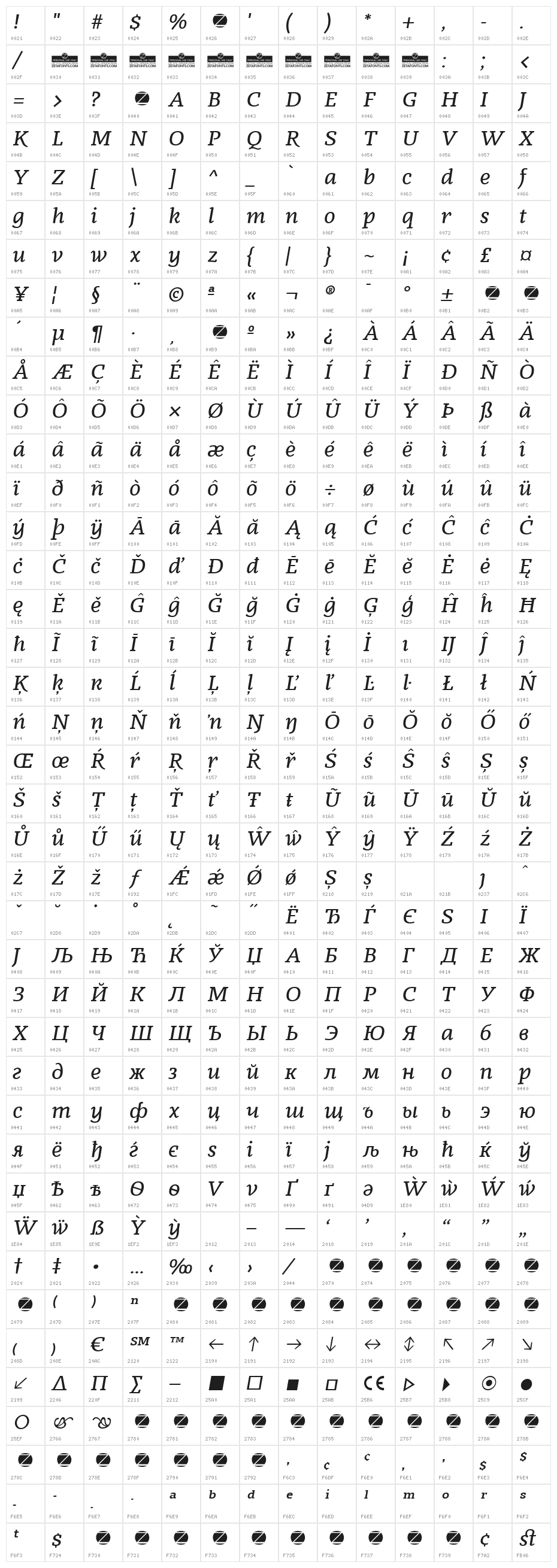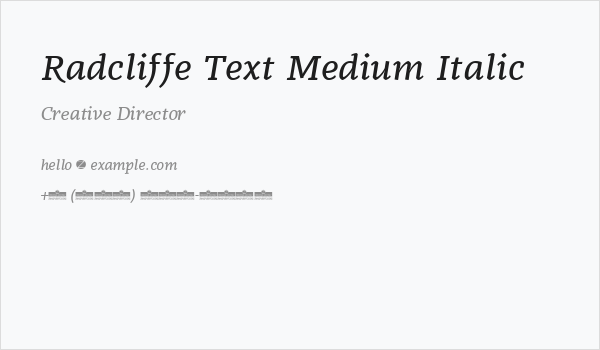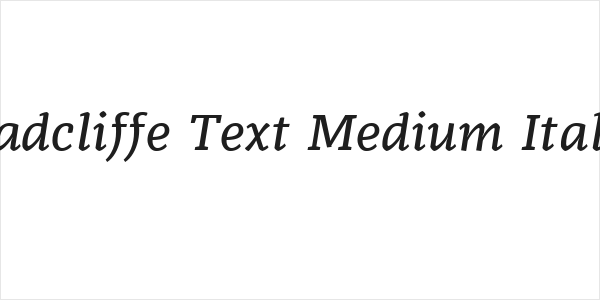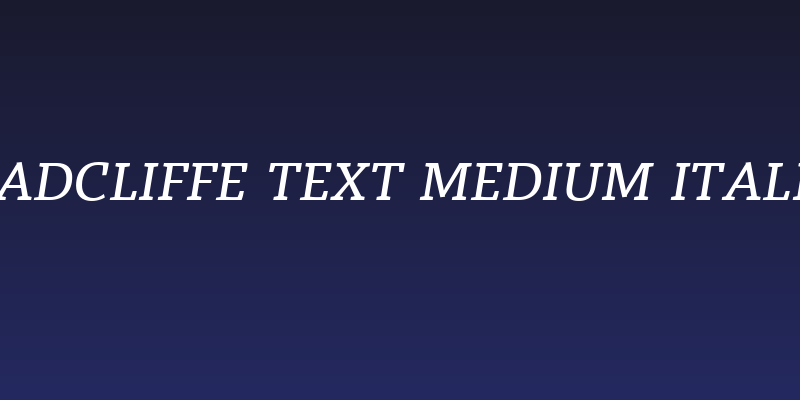
Radcliffe Text Medium Italic Font
Radcliffe Text Medium Italic Description
This font features a classic serif style with a medium weight and an elegant italic slant. The characters exhibit a traditional serif design, with smooth curves and a refined appearance. The uppercase letters are stately and balanced, while the lowercase letters maintain a graceful flow, making it suitable for formal and sophisticated applications. The numerals are clear and consistent, complementing the overall aesthetic. Special characters are thoughtfully designed, maintaining the font's cohesive look. The italic style adds a touch of elegance, making it ideal for projects that require a classic yet stylish presentation.
| Proposed Projects | Ideal for book covers, formal invitations, elegant branding, and editorial design. |